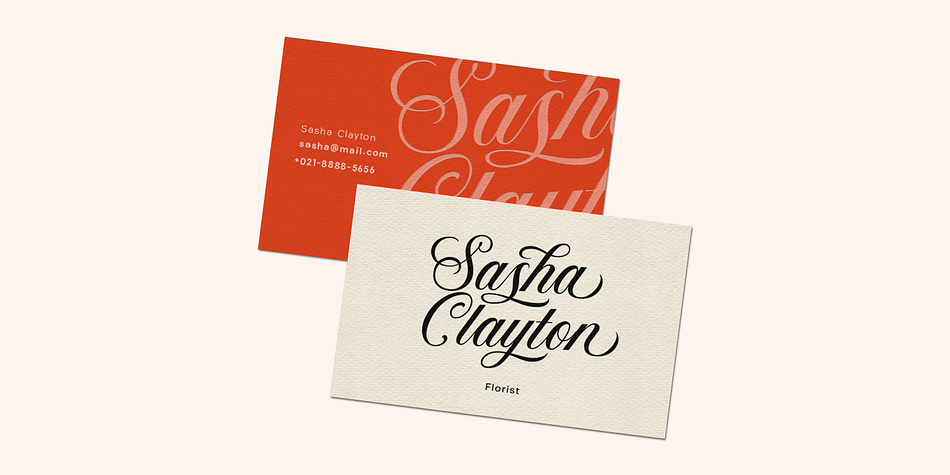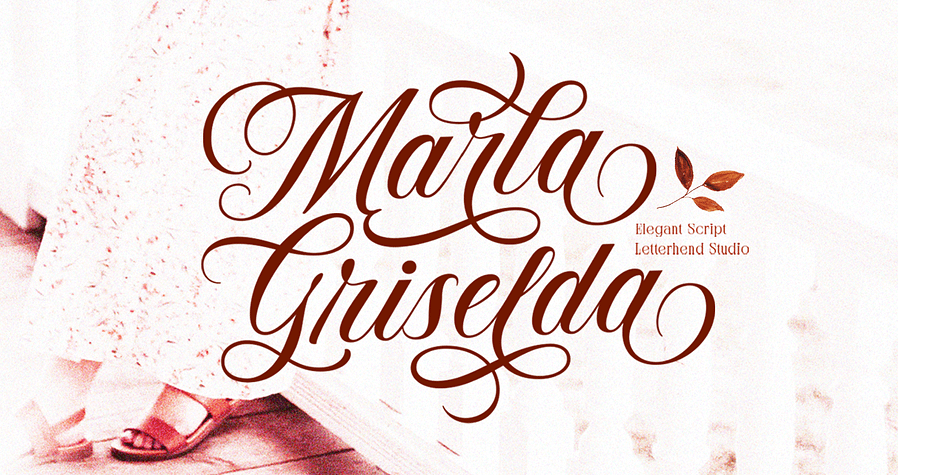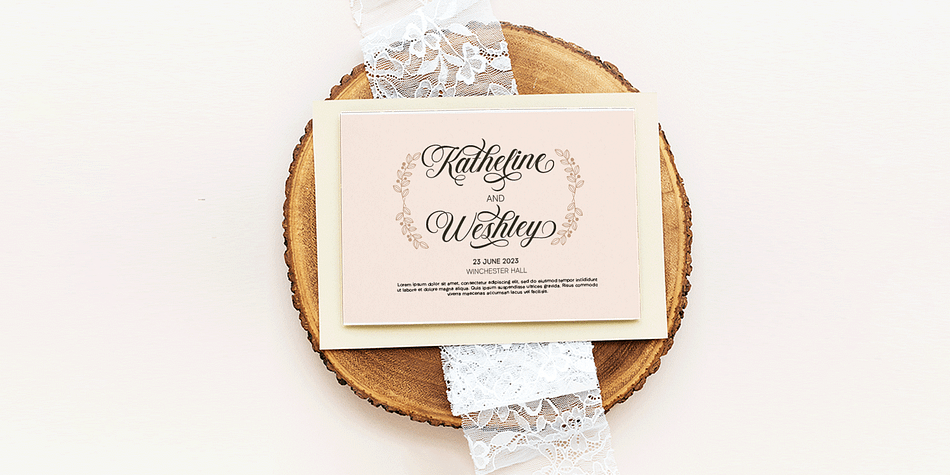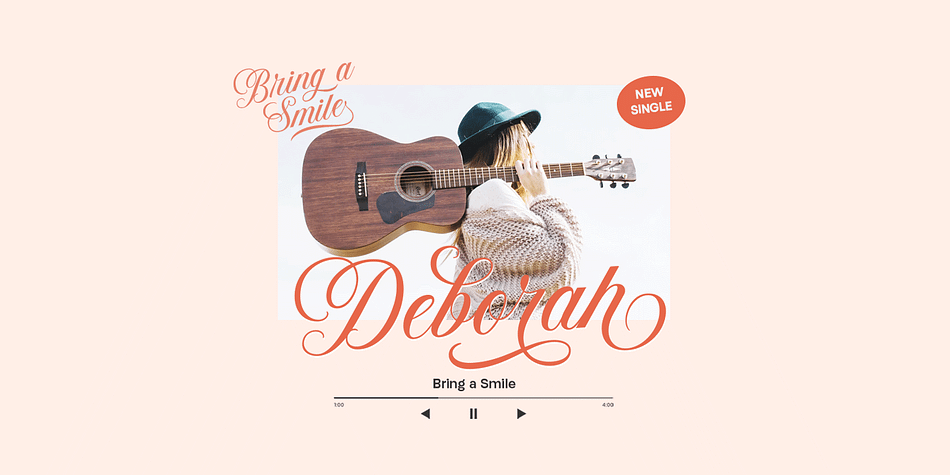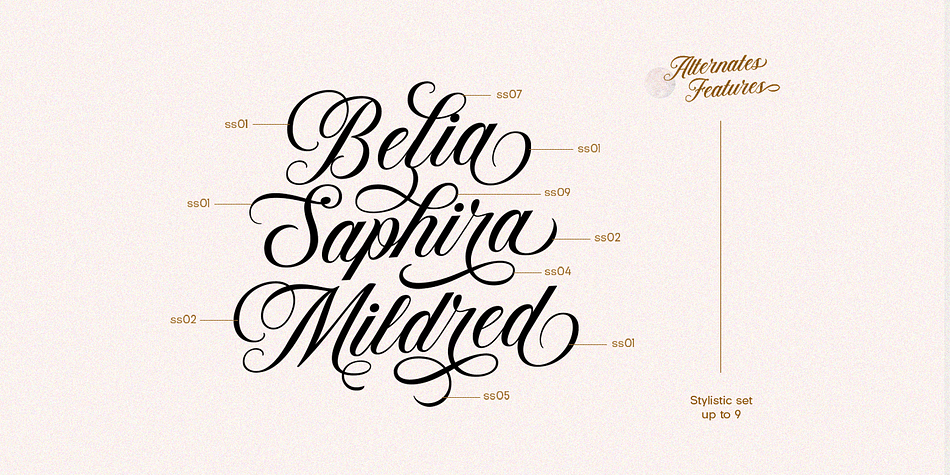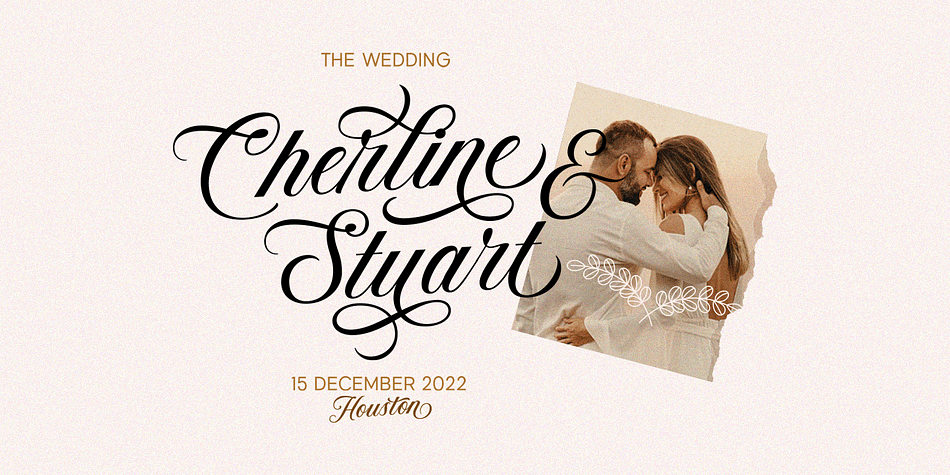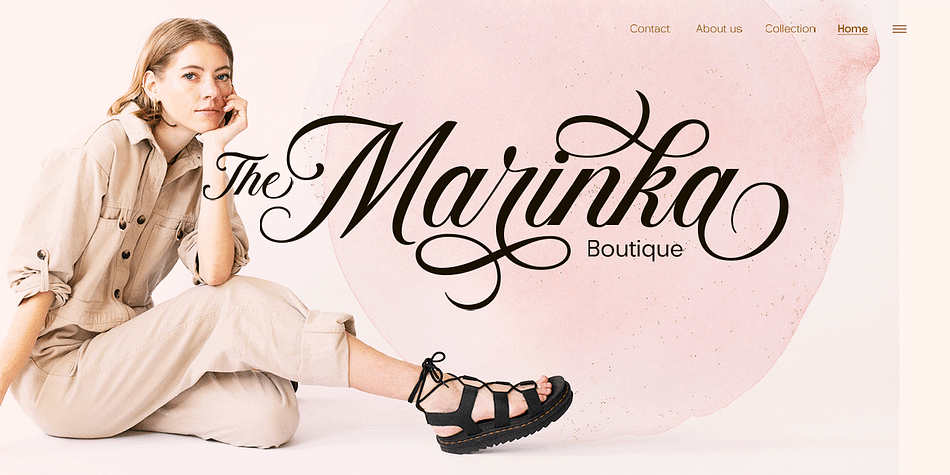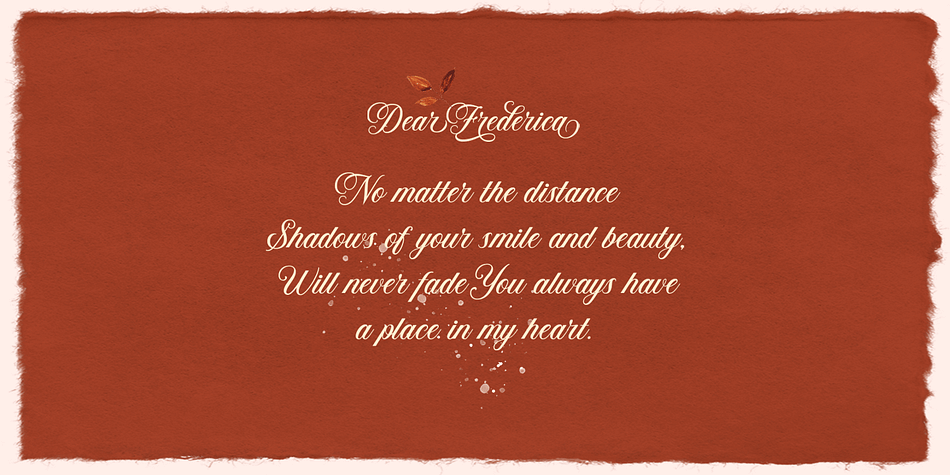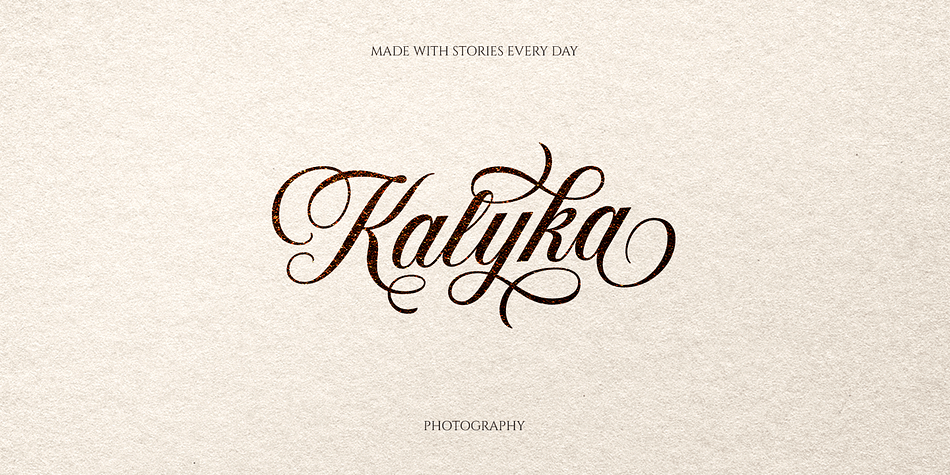
Marla Griselda
Designed by Hendry Juanda, Marla Griselda is a script font published by Letterhend Studio.
Marla Griselda is a Beautiful and classy script based on manual calligraphy ink on a paper. This fnt has many swashes that allows you to create beautiful lettering instantly. it has many stylistic set alternates that you can choose from. The character of this typeface is bouncy with natural stroke which is make it looks naturally handwritten.
This font perfectly made to be applied especially in logo, and the other various formal forms such as invitations, labels, logos, magazines, books, greeting / wedding cards, packaging, fashion, make up, stationery, novels, labels or any type of advertising purpose.
- ligatures
- alternates
- swashes